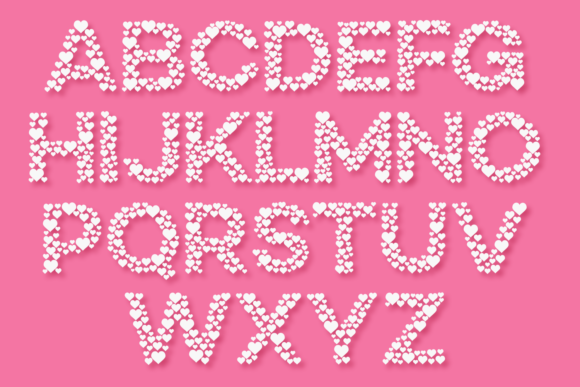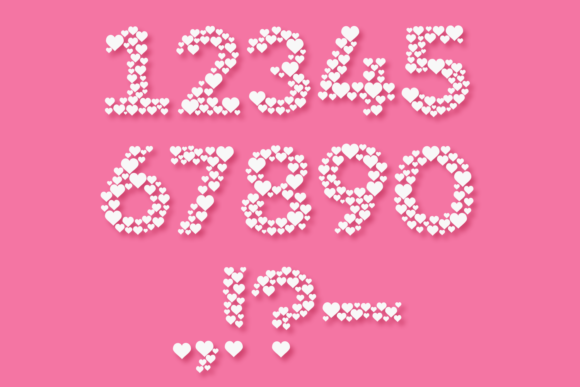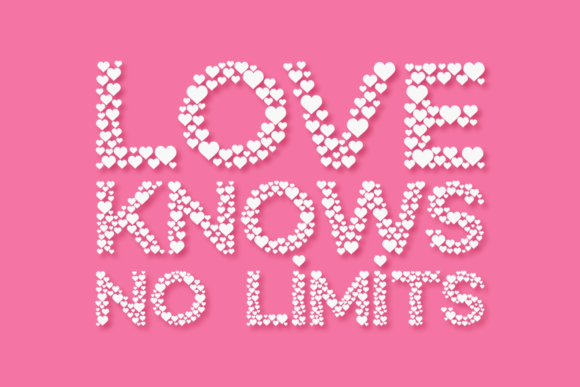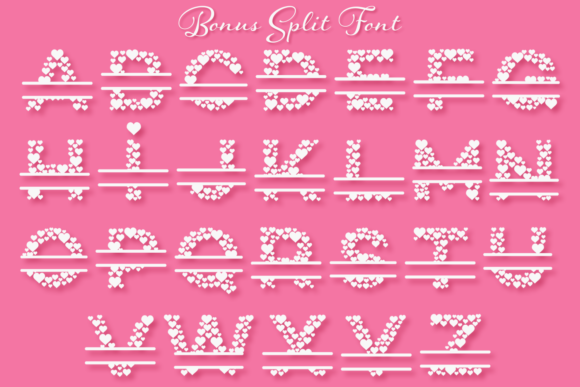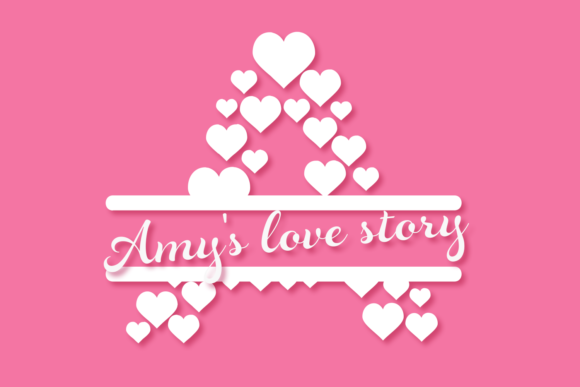
Introduction to Countless Hearts Font
The Countless Hearts is intended to be used as a header font, ornamental font and for craft products.
In this download you get the Countless Hearts font with A-Z letters, 0-9 numbers, and limited punctuation .
Key Features of Countless Hearts Font